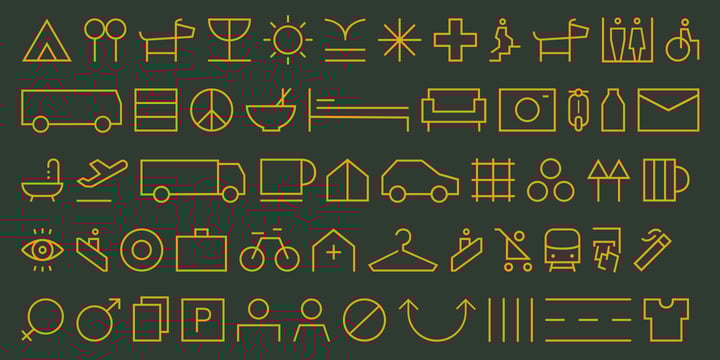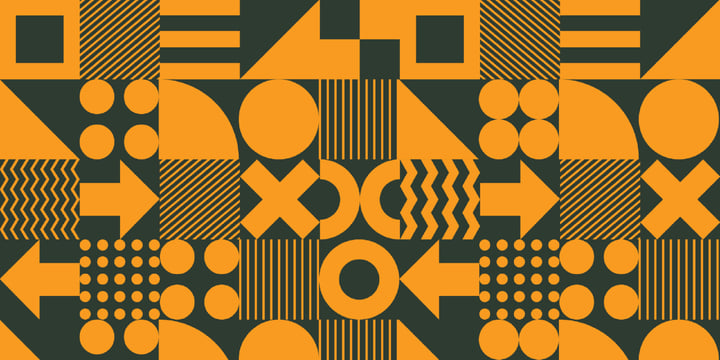
Gridink Font Family was designed by Changki Han and published by Ckhans Fonts. Gridink contains 20 styles and family package options.
Features:
• Support for 28 languages:
Afrikaans Albanian Catalan Croatian Czech Danish Dutch English Estonian Finnish French German
Hungarian Icelandic Italian Latvian Lithuanian Maltese Norwegian Polish Portugese Romanian
SlovakSlovenian Spanisch Swedish Turkish Zulu Swedish Turkish Zulu
• Contains OpenType features with alternates or substitutes
• Tabular Figures
• Ordinal numbers
• 74 icons (It will keep updating.)
• 72 graphic patterns for designer (It will keep updating.)
• 28 brand symbols (It will keep updating.)
• 27 arrows glyphs
• 0-99 line circled glyphs
• 0-99 solid circled glyphs
• A-Z line circled glyphs
• A-Z solid circled glyphs
Gridink is a modern sans serif with a geometric touch. It comes in 9 weights, 18 uprights and its matching italics, patterns, so you can use them to your heart’s content. Designed with powerful opentype features in mind. Each weight includes extended language support, fractions, tabular figures, arrows, ligatures, icons and patterned.
Gridink family consists of 19 styles (9 weights, 9 Italics and 1 patterns), in each of which there are more than 940+ glyphs. In the typeface, each weight includes extended language support, fractions, tabular figures, arrows, ligatures and more. Perfectly suited for graphic design and any display use. It could easily work for web, signage, corporate as well as for editorial design. documents and folders, mobile interface.